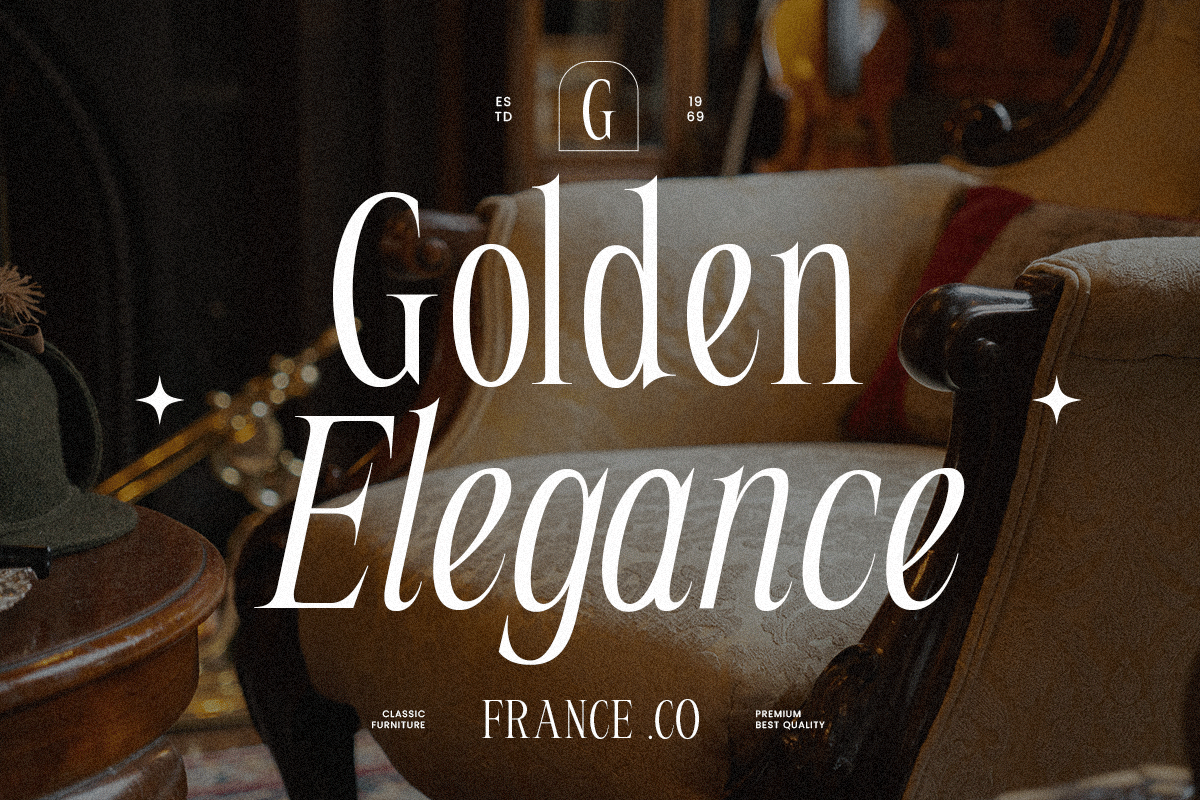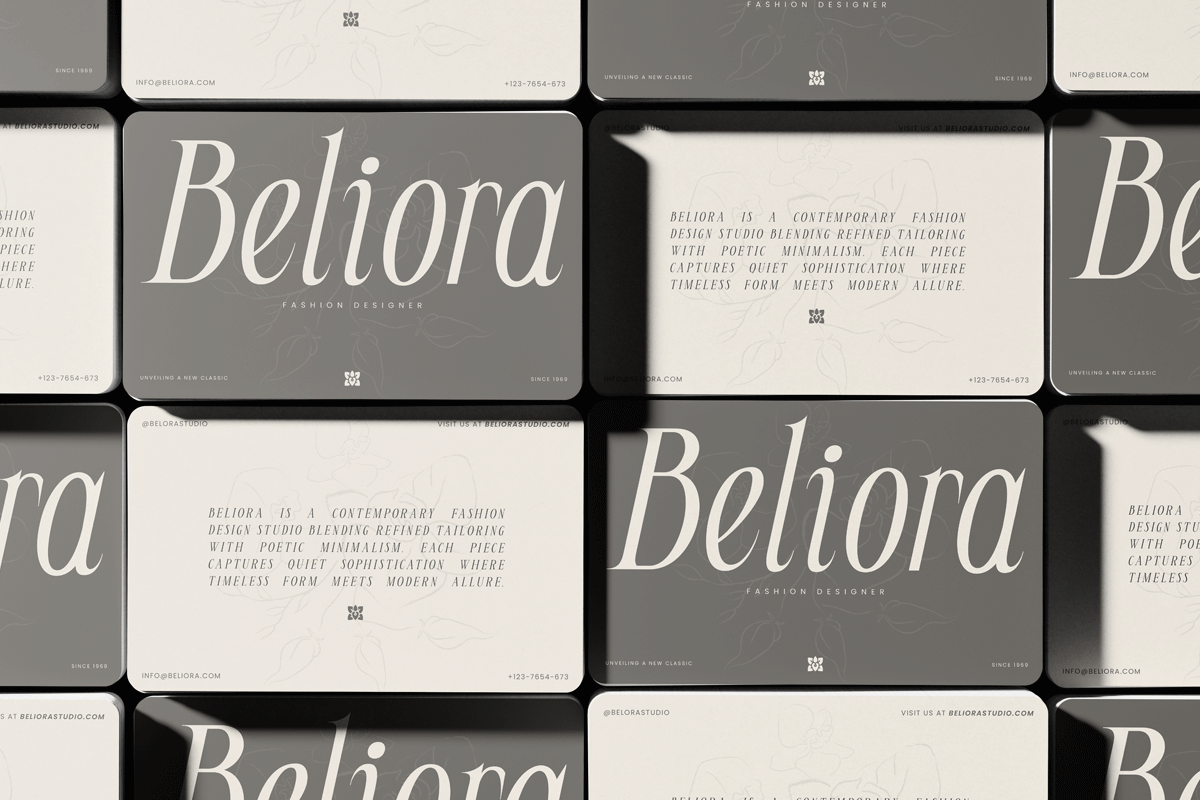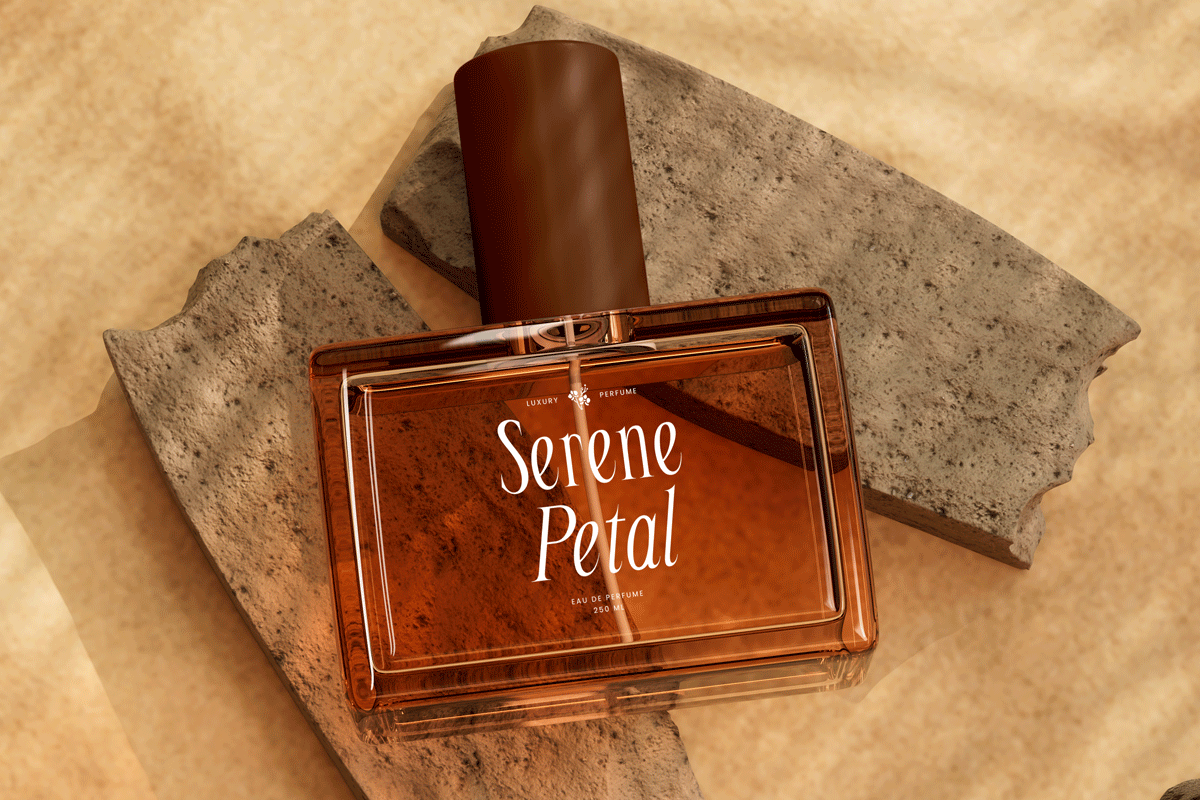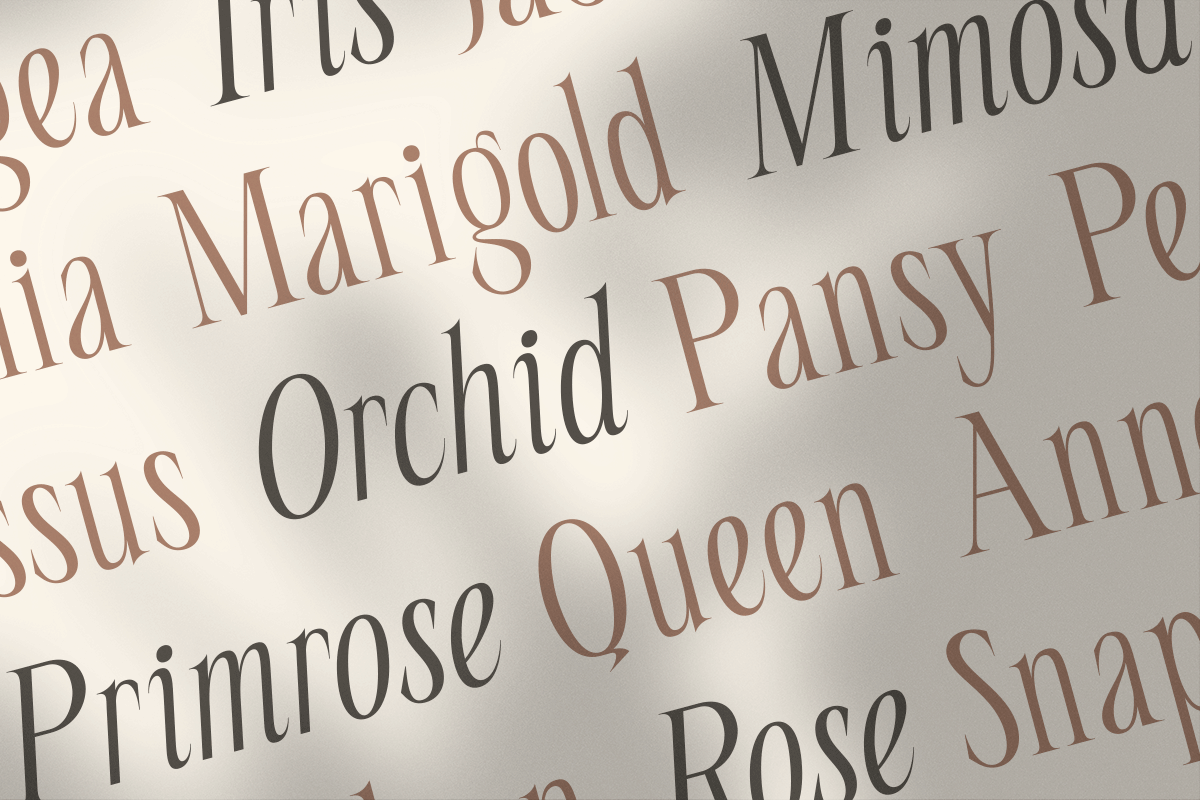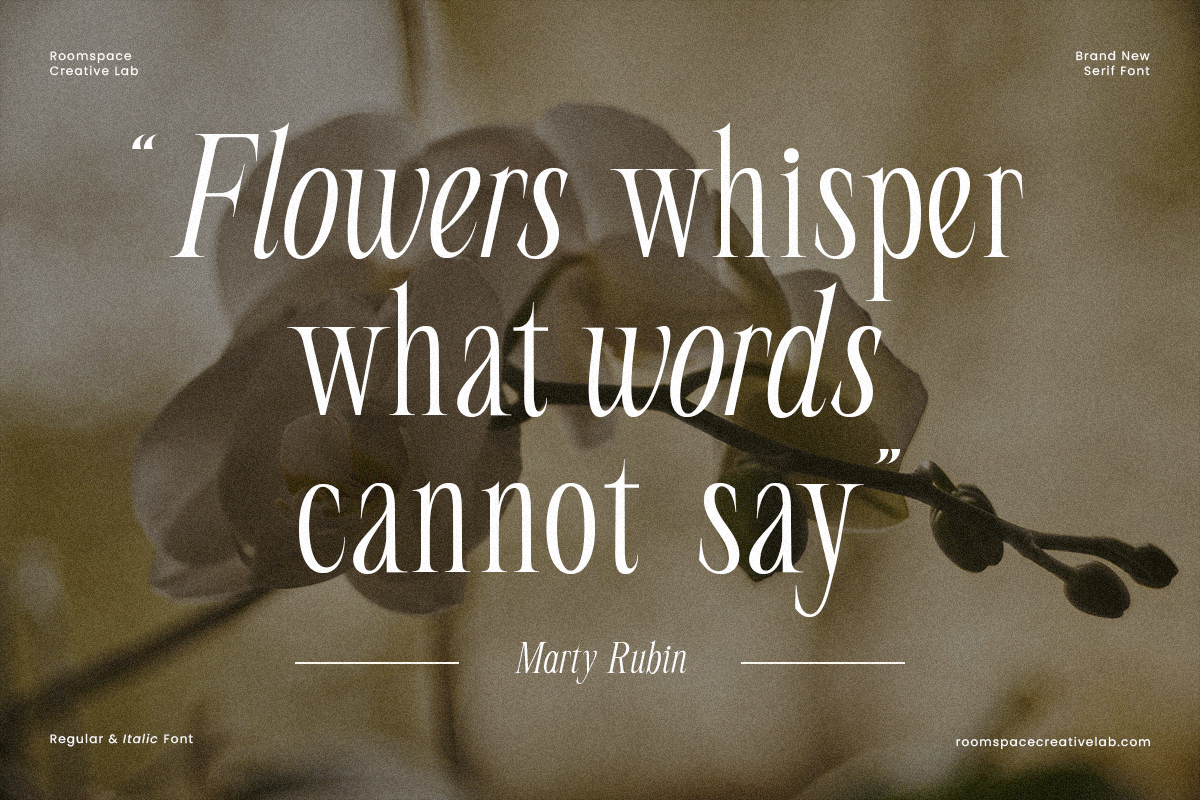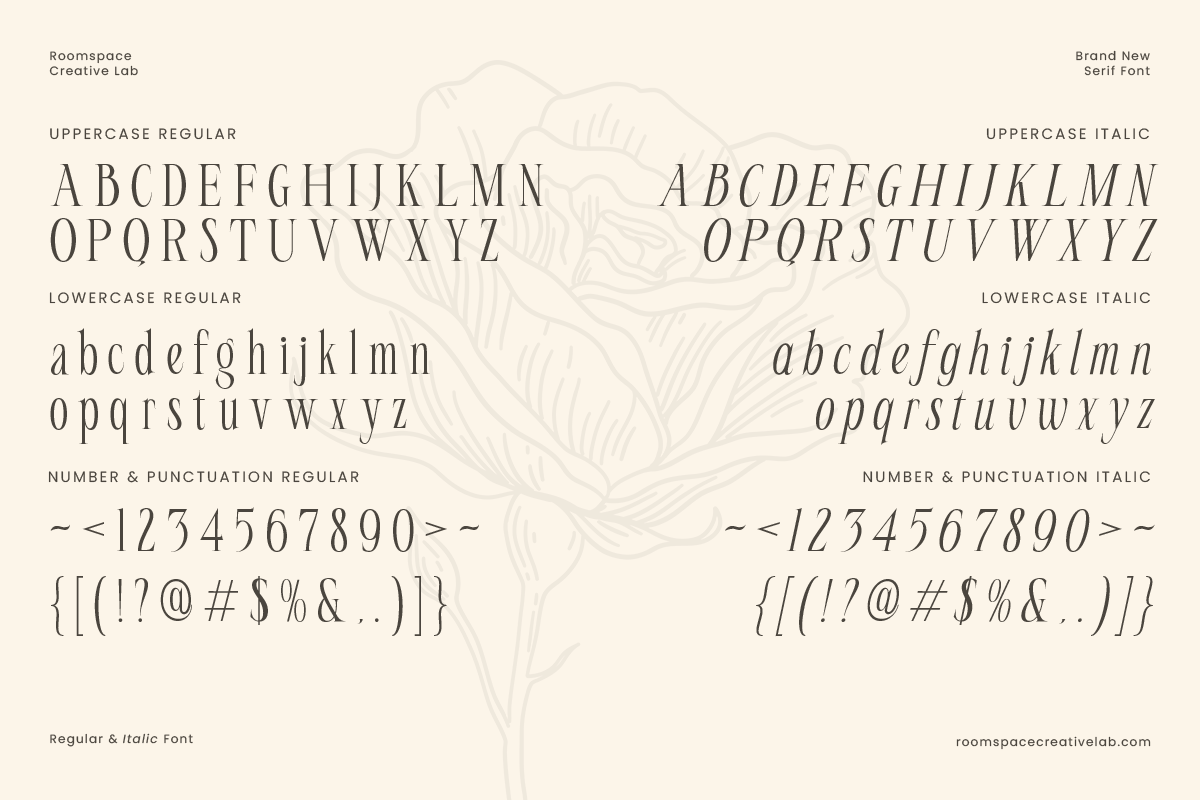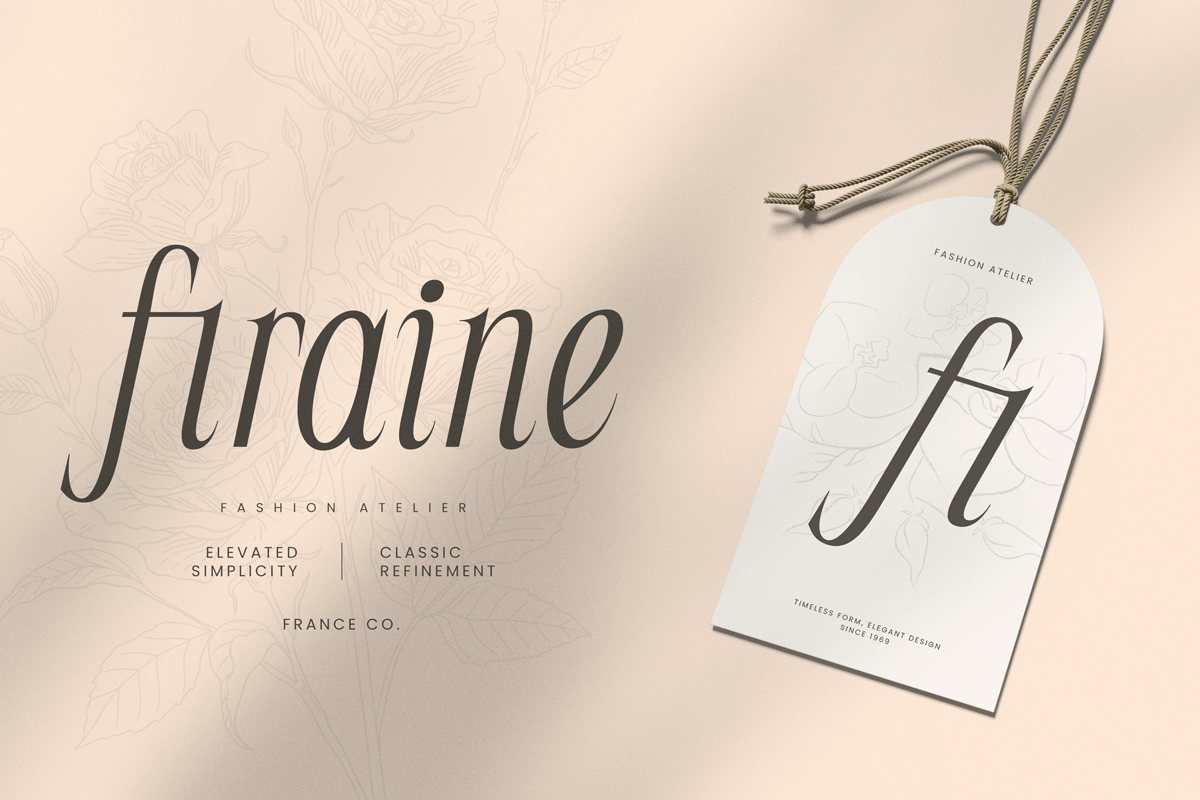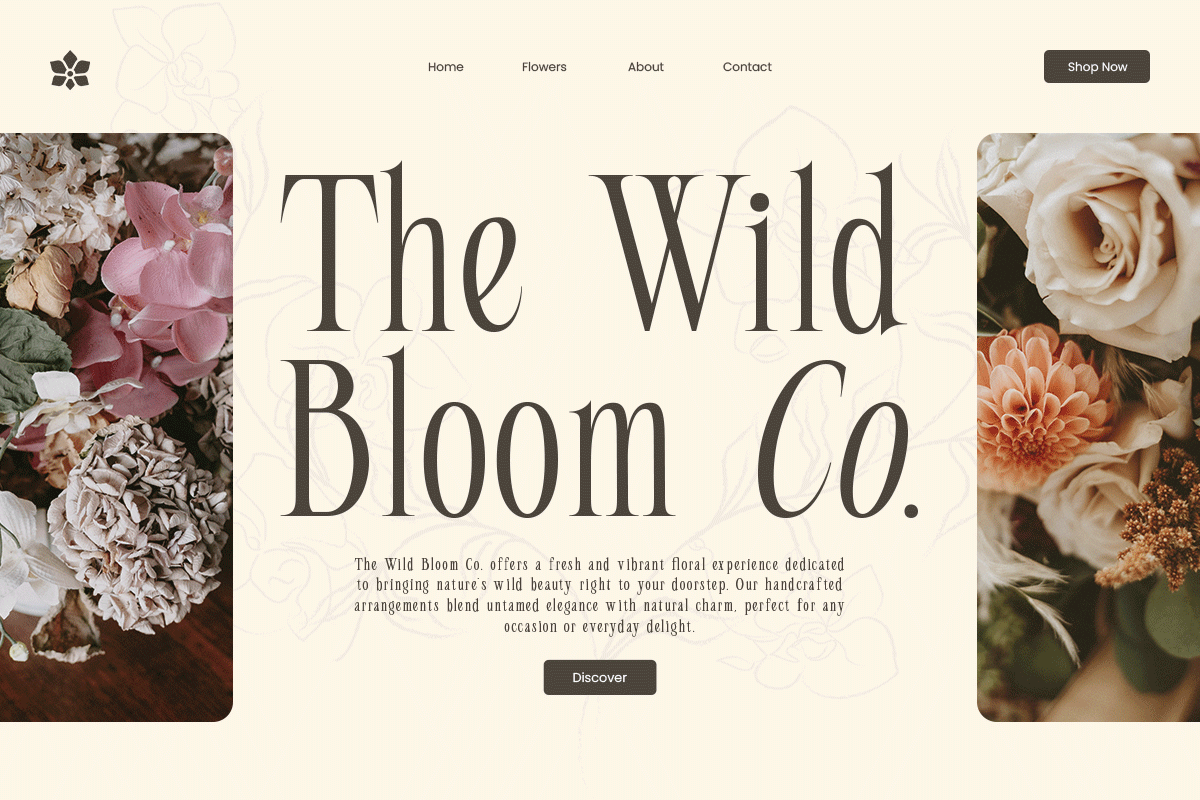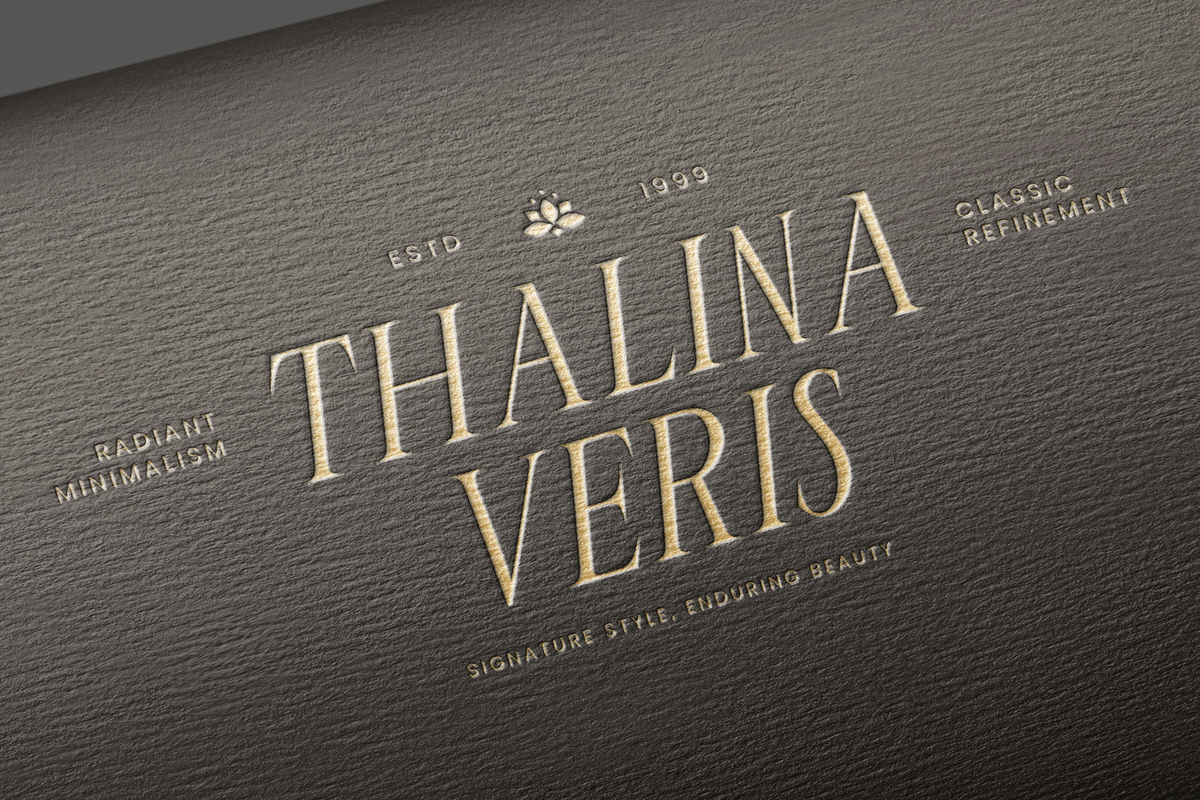
Seraline Orchid – A Graceful Modern
Seraline Orchid is a serif typeface that embodies calm beauty and editorial luxury. Inspired by natural curves and soft botanical forms, this typeface adds sophistication to wedding invitations, branding identities, and fashion layouts. Perfect for those who love elegant type with a romantic edge Seraline Orchid brings quiet power and polished detail to every project.
- Regular & Italic
- Alternates & ligatures
Perfect For : Wedding stationery, beauty brands, boutique logos, high-end packaging, fashion campaigns, magazine headlines, and social media design.